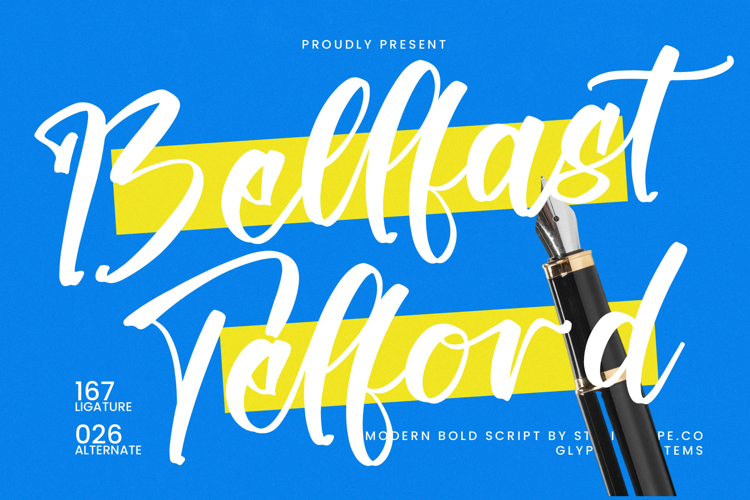
Bellfast Telford - Modern Bold Script
Bellfast Telford - Modern Bold Script. This isn't just a typeface; it’s a confident declaration. Featuring an immediately recognizable, high-contrast script style, its robust brushstrokes maintain the authenticity of hand-lettering while offering the clean, scalable precision demanded by modern design. The dynamic flow and generous weight make it inherently visible, even at large display sizes, ensuring your message commands attention without sacrificing elegance.